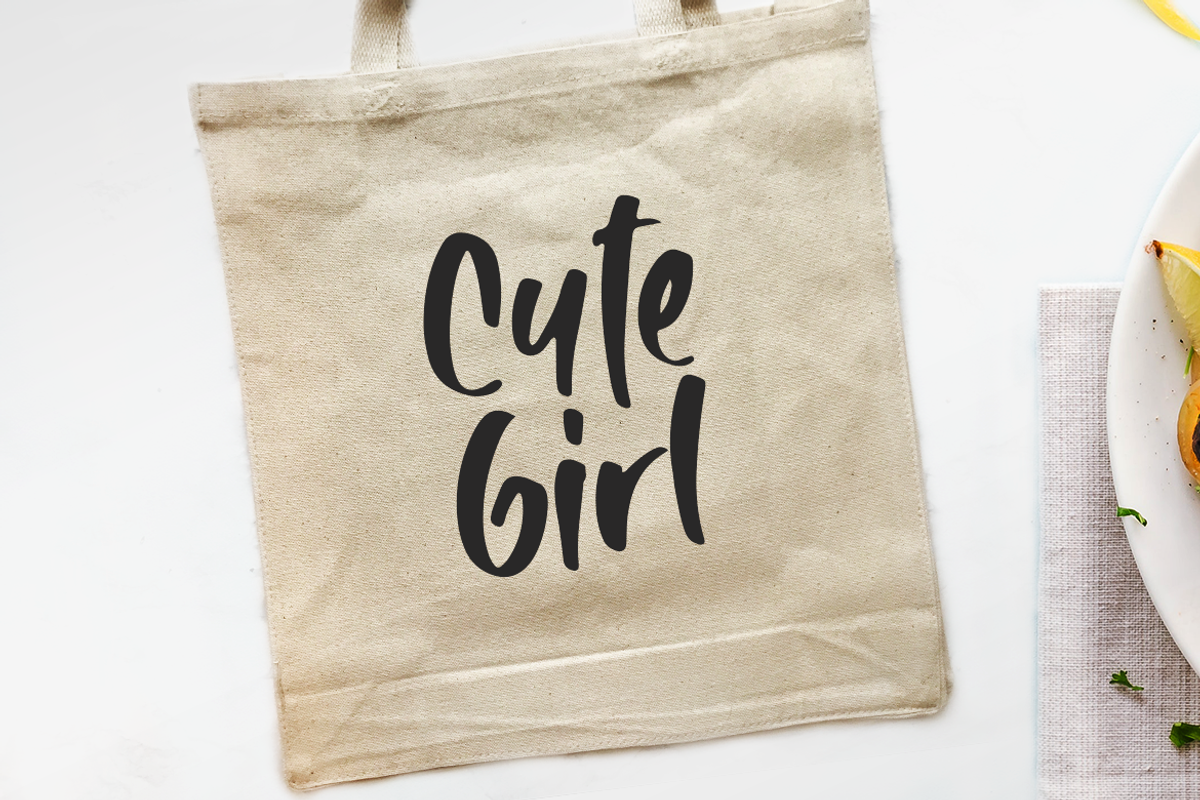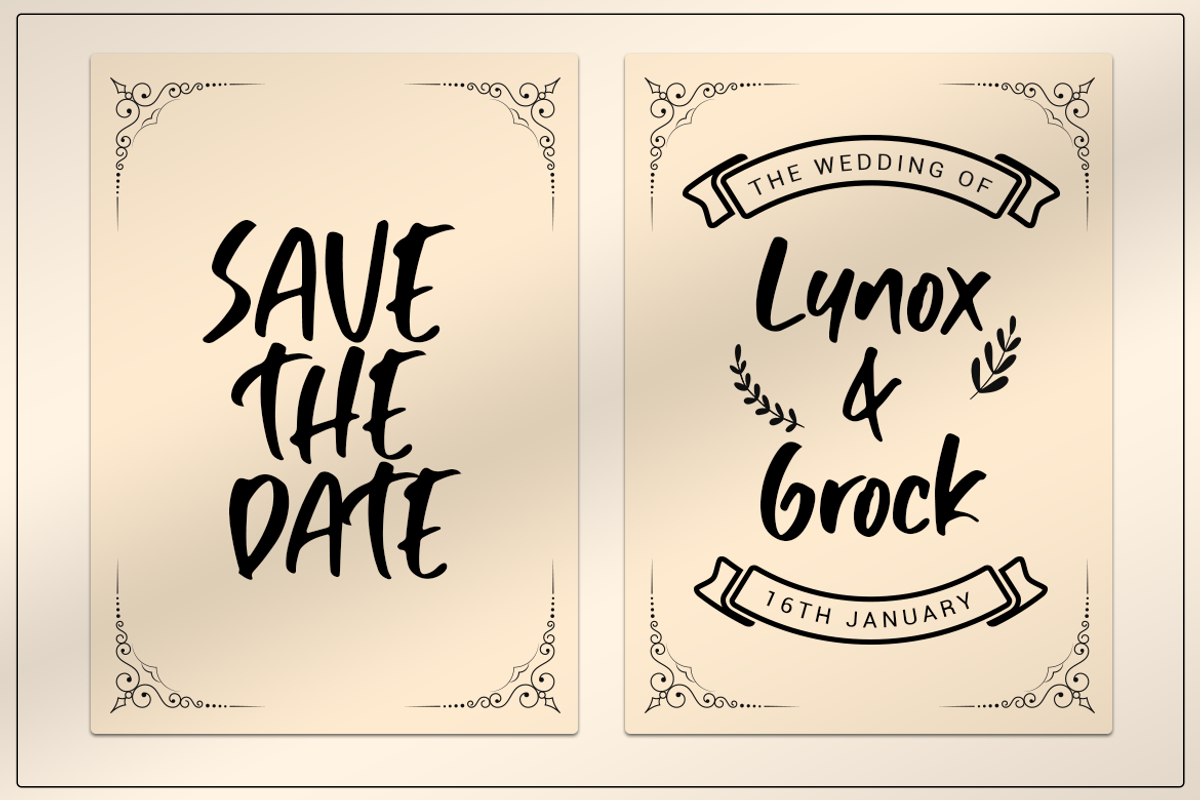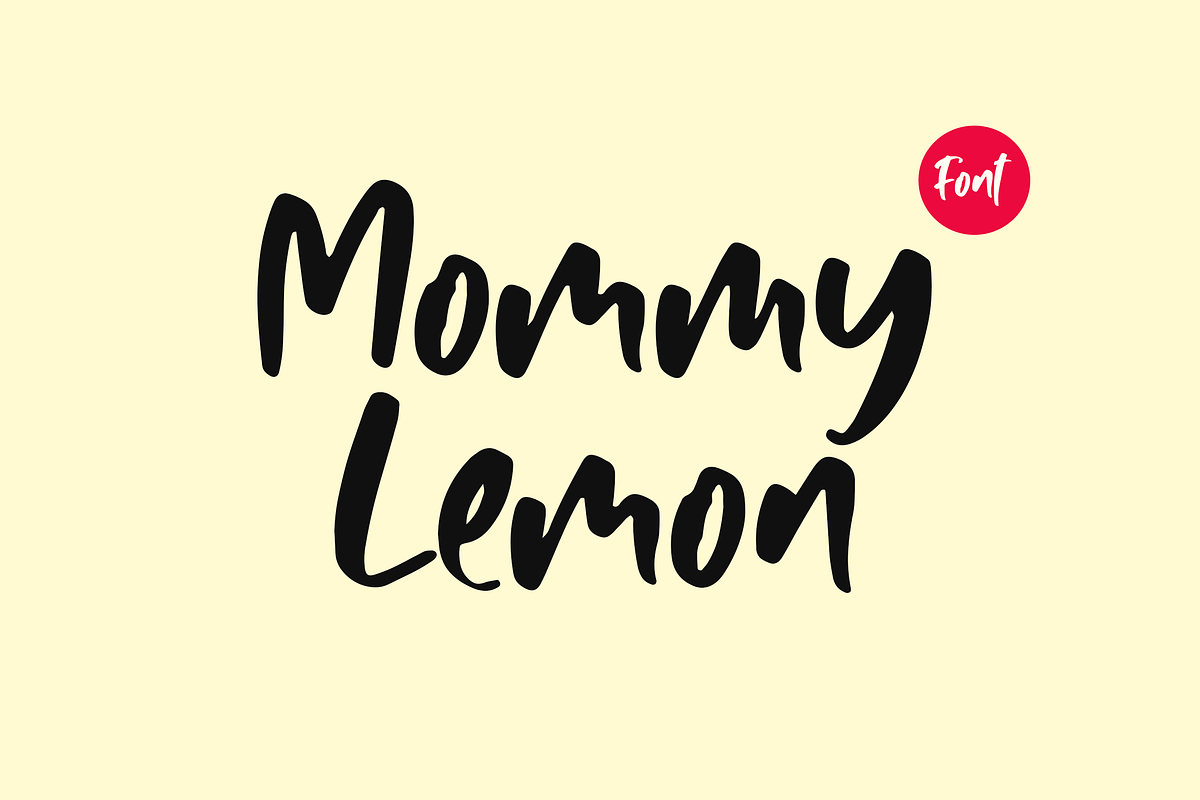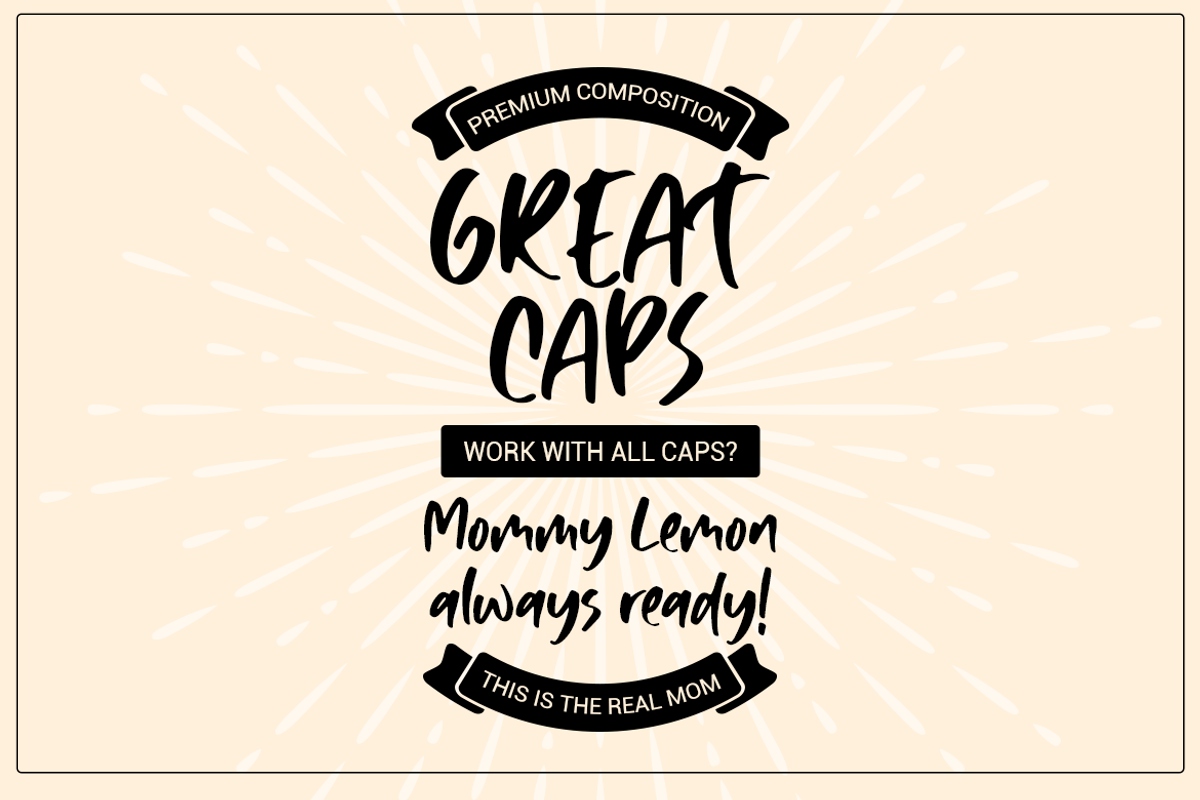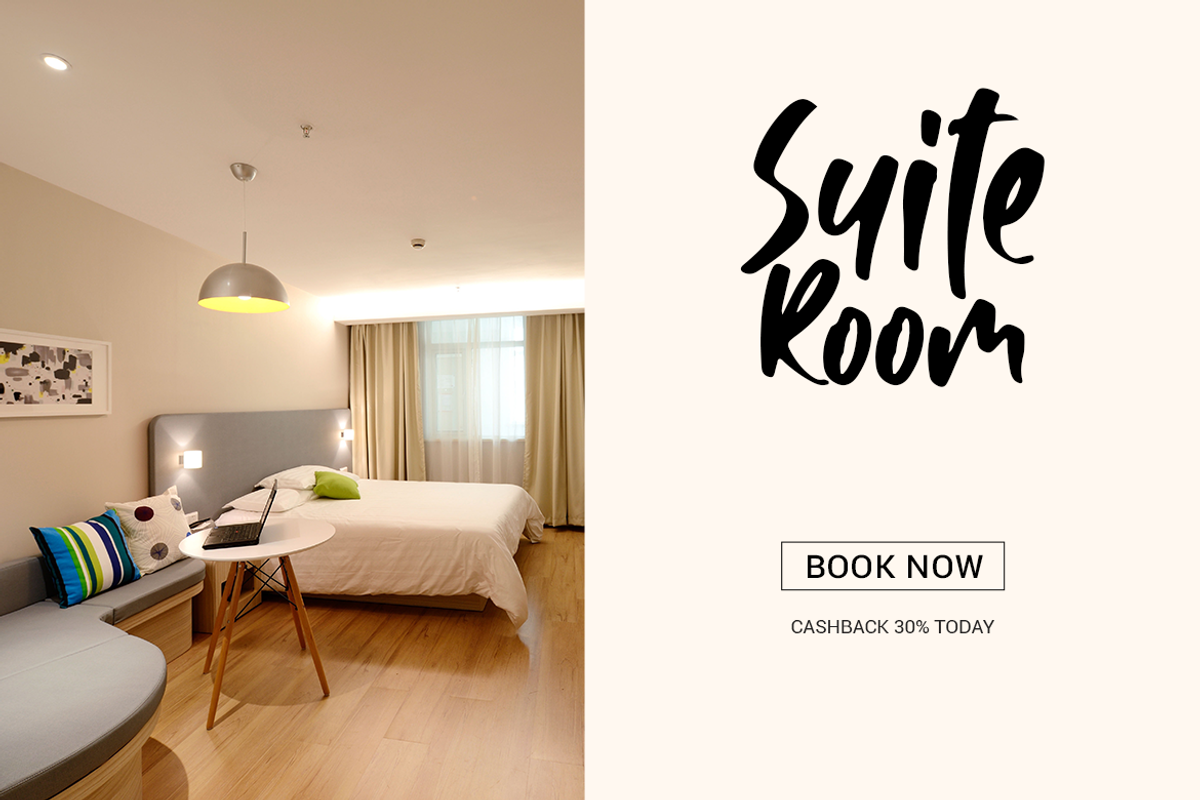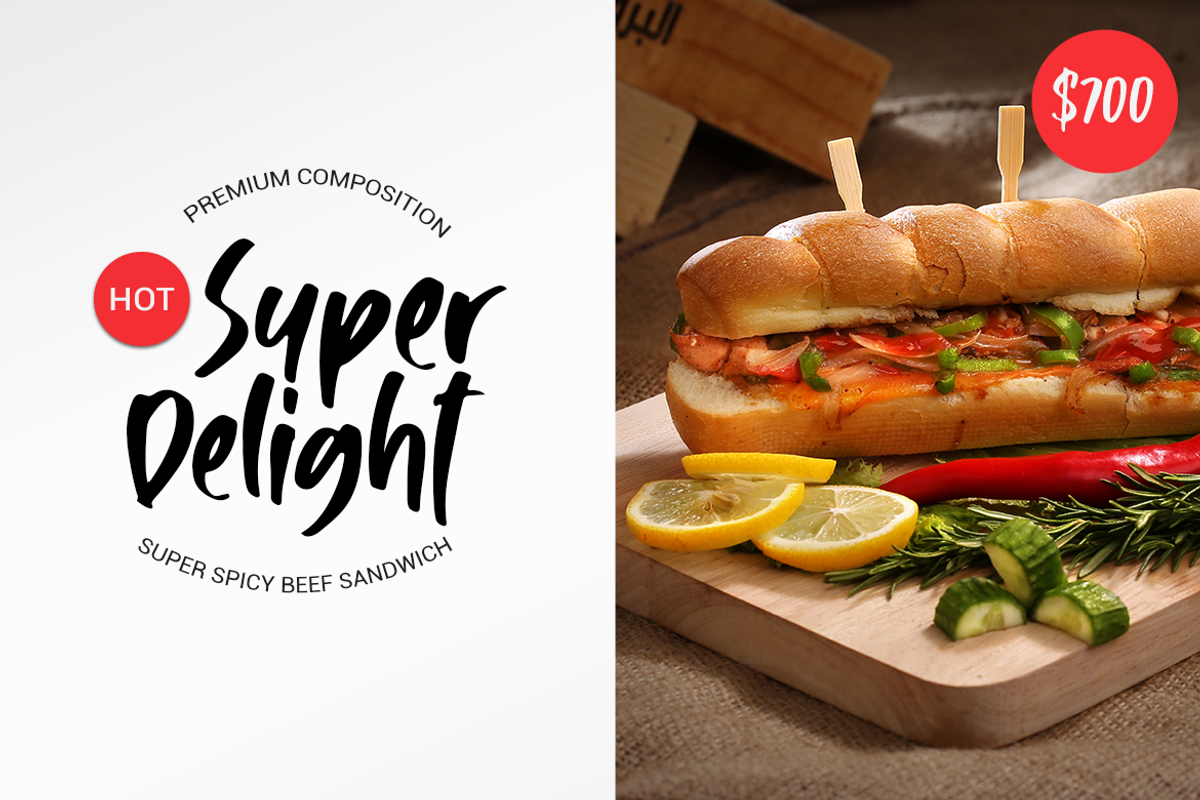
Mommy Lemon - Fun Typeface
Mommy Lemon - a smooth handcrafted font with delightful characters. It's great for headline, logo, poster, spa or hotel projects, food projects, and many more.
- Mommy Lemon - a smooth handcrafted font with delightful characters.
Mommy Lemon - Fun Typeface by Motokiwo fits naturally into Branding, posters, packaging, typography.